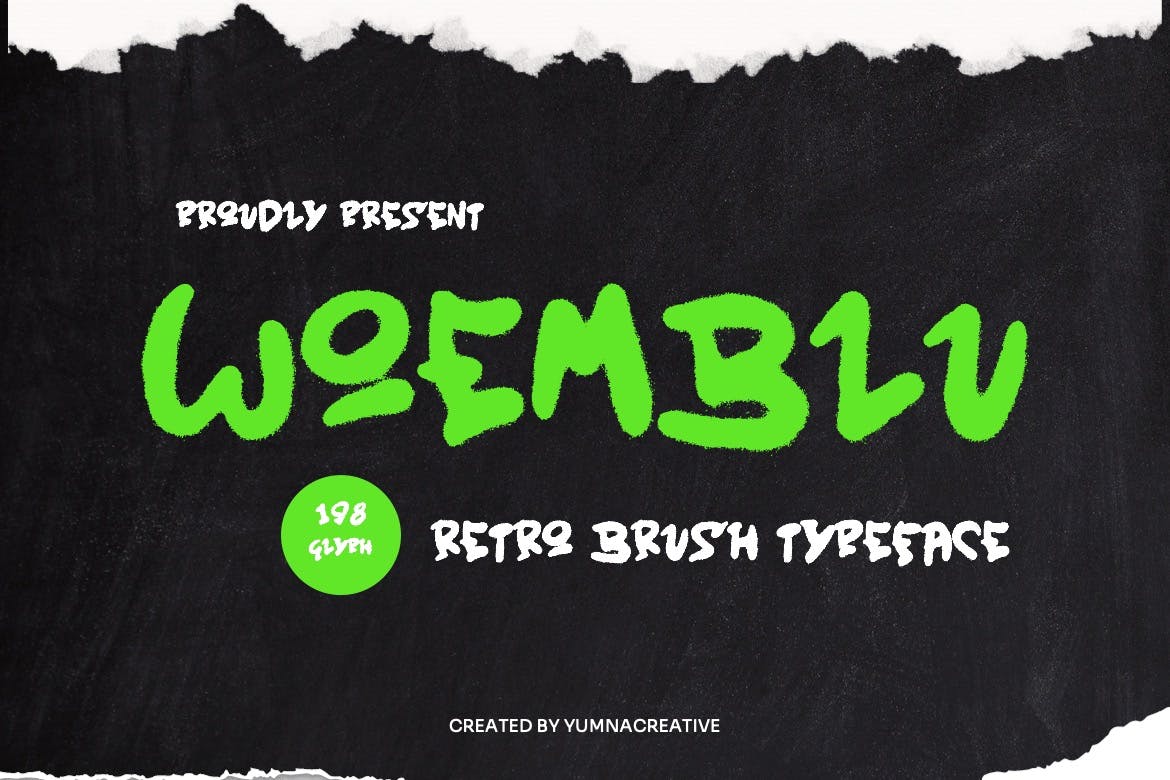
Woemblu - Retro Brush Font
Woemblu - Retro Brush Font grooves across vintage music venue signage, retro dance studio branding, nostalgic cocktail lounge menus, throwback fashion campaigns, classic car show graphics, vintage record store identities, retro diner advertising, nostalgic barbershop materials, vintage arcade game interfaces, retro festival promotions, classic radio station branding, and groovy lifestyle marketing where retro charm and brush artistry create unforgettable nostalgic experiences.
This groovy typeface generates excitement through its perfect fusion of retro nostalgia and authentic brush artistry that creates typography channeling the soul and rhythm of vintage culture and classic entertainment eras. Woemblu - Retro Brush Font captures the essence of vintage cool with its smoothly flowing brush strokes that suggest the hand-painted signage of classic establishments and the organic artistry found in authentic retro design. The font's nostalgic design approach incorporates elements that evoke vintage neon signs, classic album covers, and the warm analog aesthetic that defined golden eras of music, fashion, and entertainment culture. Its distinctive character reflects the authenticity, craftsmanship, and timeless cool that define genuine retro style and vintage cultural heritage.
The Woemblu - Retro Brush Font family includes multiple vintage variations such as Regular, Bold, Light, Groovy, and Classic versions, each maintaining the font's characteristic retro authenticity while offering different levels of nostalgic impact. The collection features vintage brush textures, retro styling effects, and nostalgic treatments that enhance its classic aesthetic. Additional elements include vintage ornaments, retro symbols, classic decorative borders, and groovy flourishes that reinforce the font's connection to authentic vintage culture and retro artistic heritage.
Vintage lifestyle brands and retro entertainment venues consistently select Woemblu - Retro Brush Font Free Download for projects requiring typography that communicates authentic retro charm and vintage cultural credibility. This remarkable typeface excels in applications where establishing nostalgic authenticity and conveying vintage sophistication are essential for retro market success. The font's groovy qualities make it particularly effective for vintage-inspired businesses, retro entertainment venues, and nostalgic lifestyle brands targeting audiences who appreciate authentic vintage culture and classic artistic expression.
Whether you're designing vintage business identities, creating retro entertainment materials, developing nostalgic lifestyle campaigns, or crafting classic cultural communications, Woemblu - Retro Brush Font delivers unmatched vintage authenticity. Its ability to convey retro charm, vintage craftsmanship, and nostalgic sophistication makes it invaluable for retro enthusiasts seeking typography that genuinely captures the essence of classic cultural eras. The font's groovy presence ensures your designs will communicate the authentic vintage spirit and retro artistic heritage that define exceptional nostalgic communications and classic lifestyle experiences.